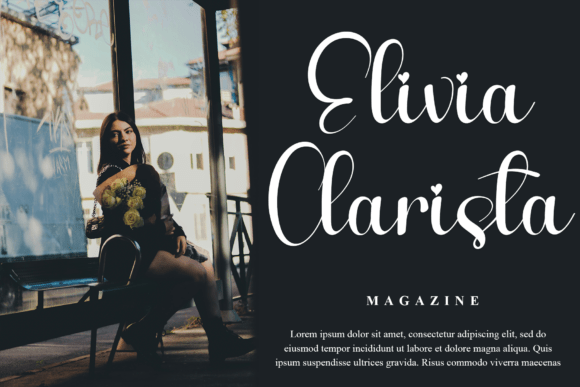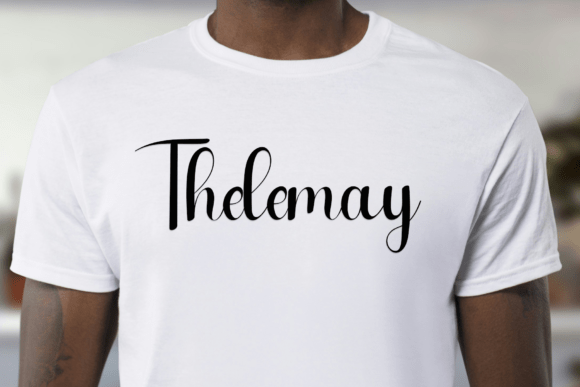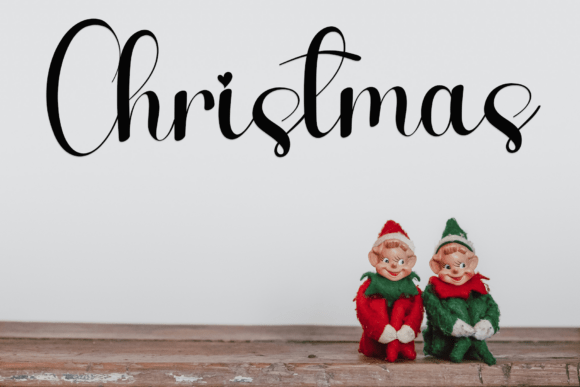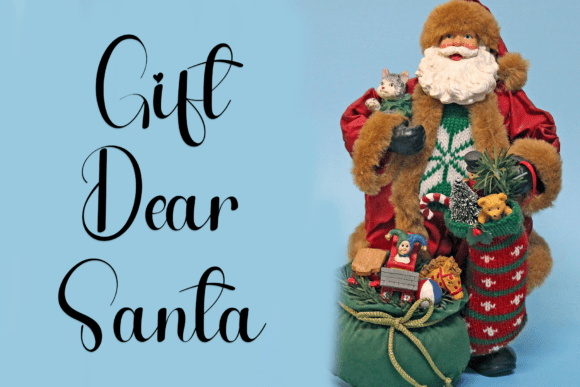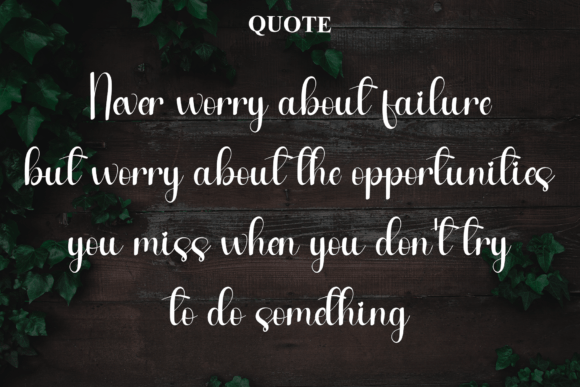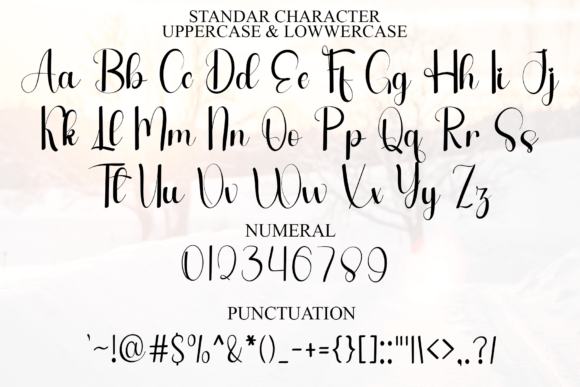
Introducing Graduation Handmade Font: Add a Touch of Whimsy to Your Designs
Are you looking for a font that captures the spirit of celebration and festivity? Look no further than the Graduation Handmade Font! This delightful typeface is perfect for designers and crafters who want to add a touch of magic to their projects. With its decorative elements and whimsical flair, Graduation Handmade Font is sure to bring a cheerful and nostalgic ambiance to your words.
What Makes Graduation Handmade Font Special?
Graduation Handmade Font is a unique and festive typeface that is perfect for holiday-themed projects, greeting cards, gift tags, and more. Its decorative elements and whimsical design make it stand out from other fonts, adding a touch of enchantment to your designs. Whether you’re working on a festive holiday project or just want to add some personality to your typography, Graduation Handmade Font is the perfect choice.
Graduation Handmade Font is a versatile typeface that is perfect for designers and crafters alike. With its PUA encoding, you can access all of the amazing glyphs and ligatures with ease, making it simple to incorporate into your projects. Whether you’re creating:
- Greeting cards for special occasions
- Gift tags for presents
- Holiday-themed projects, such as Christmas or Halloween decorations
- Blog or website headers and titles
Graduation Handmade Font is the perfect addition to your design toolkit.
Key Features of Graduation Handmade Font
Here are just a few of the key features that make Graduation Handmade Font so special:
- PUA Encoding: With PUA encoding, you can access all of the amazing glyphs and ligatures with ease, making it simple to incorporate into your projects.
- Decorative Elements: Graduation Handmade Font features decorative elements and whimsical design, adding a touch of enchantment to your designs.
- Festive and Merry: This typeface is perfect for holiday-themed projects, capturing the spirit of celebration and festivity.
- Whimsical Flair: Graduation Handmade Font adds a touch of personality to your typography, making it perfect for designers and crafters who want to stand out.